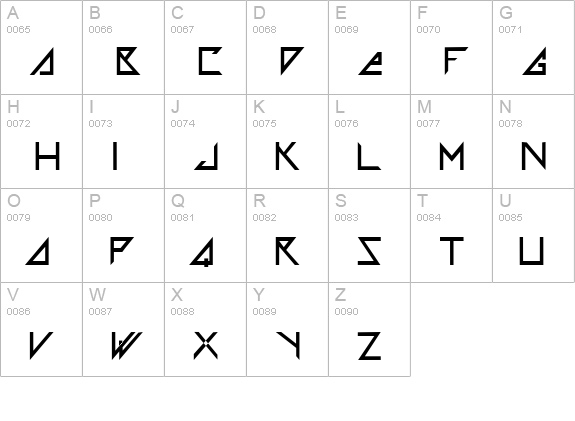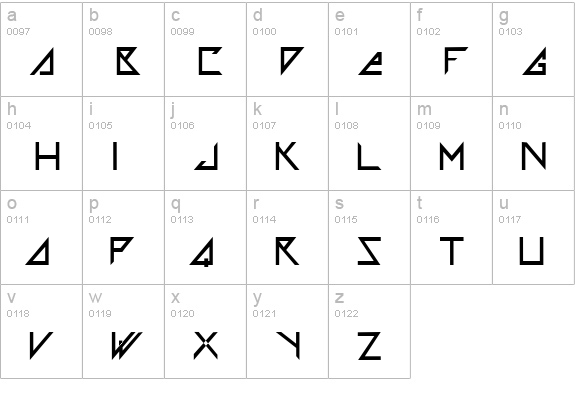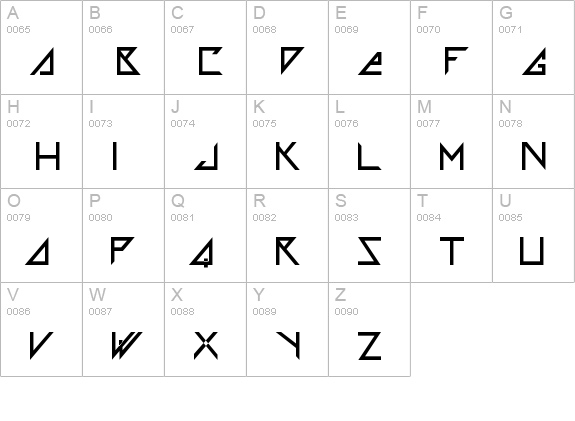
Astra Font Details
Astra font is a modern and versatile typeface that exudes elegance and sophistication. With its clean lines and balanced letterforms, Astra is perfect for a wide range of design projects, from branding to editorial design. This font is available in a variety of weights and styles, making it easy to adapt to different design needs. What sets Astra font apart is that it is not only beautifully crafted but also completely free to download. You can access this stunning typeface at FontsMarket.com, where you can easily download it and start using it in your projects right away. Whether you're working on a logo, a poster, or a website design, Astra font is sure to elevate your work and make it stand out. Don't miss out on this amazing opportunity to enhance your designs with the sleek and stylish Astra font.